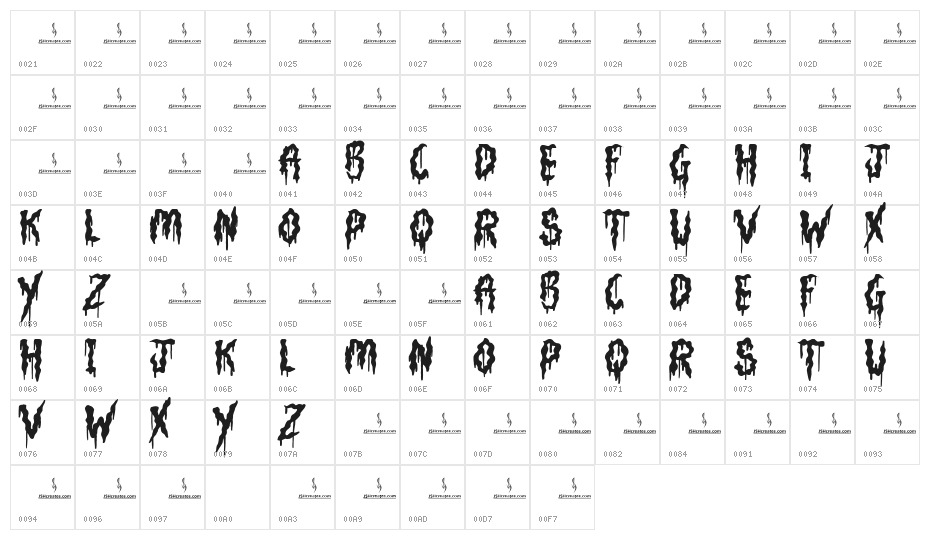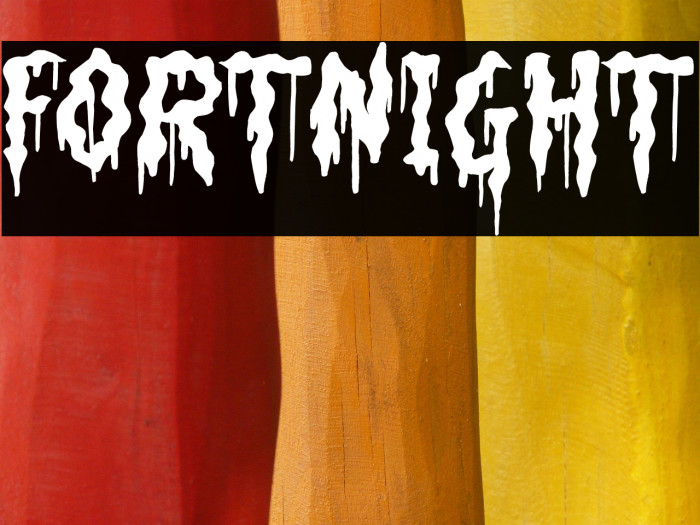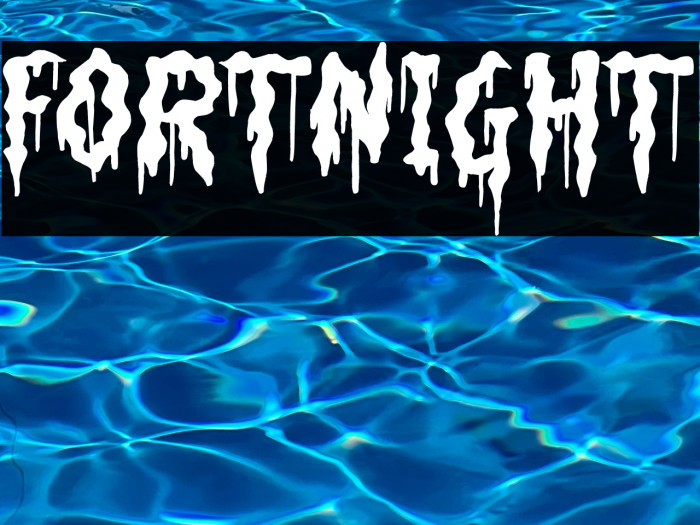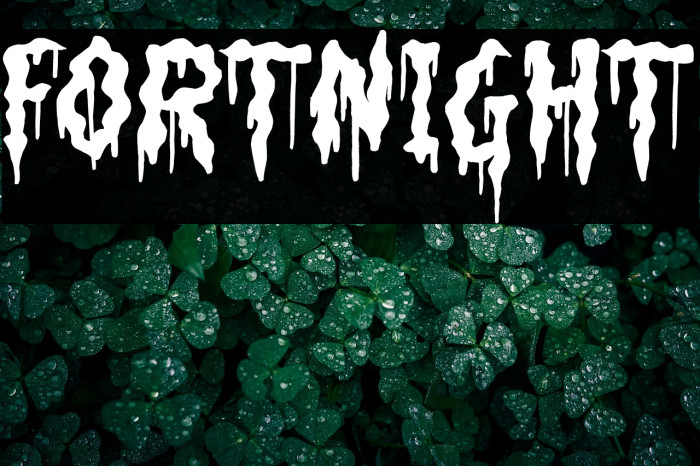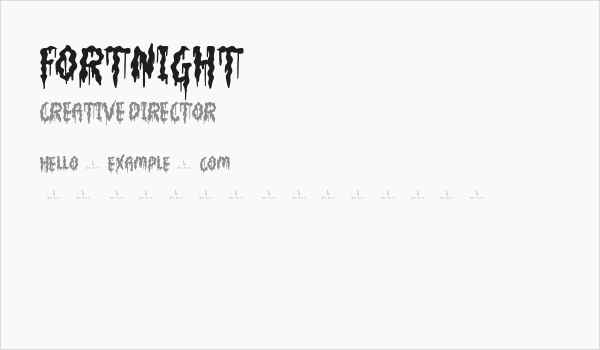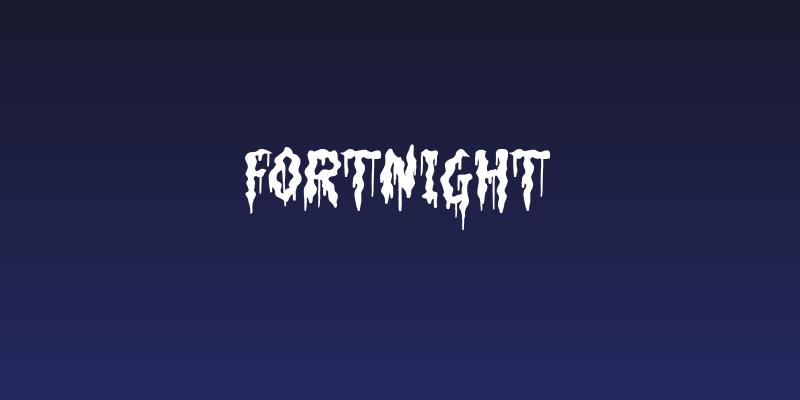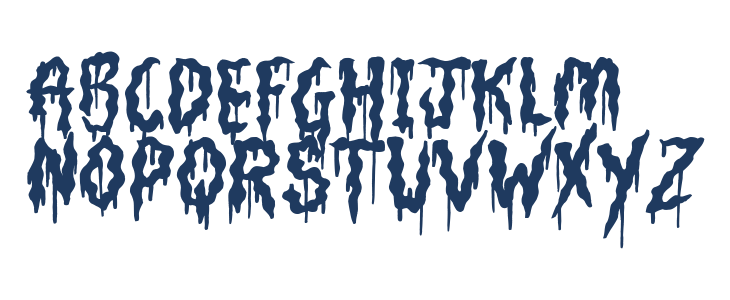
Fortnight Font
Fortnight Description
This font features a unique and dramatic style, characterized by its dripping, liquid-like appearance. Each letter seems to be melting or oozing, creating a sense of movement and fluidity. The bold, thick strokes give it a strong presence, making it ideal for attention-grabbing designs. The irregular edges and organic shapes add a touch of chaos and unpredictability, enhancing its visual impact. This font is perfect for themes related to horror, Halloween, or anything that requires a spooky or eerie vibe. Its distinctiveness makes it suitable for creative projects that aim to stand out.
| Proposed Projects | Ideal for Halloween-themed designs, horror movie posters, haunted house flyers, and other spooky or eerie projects. |